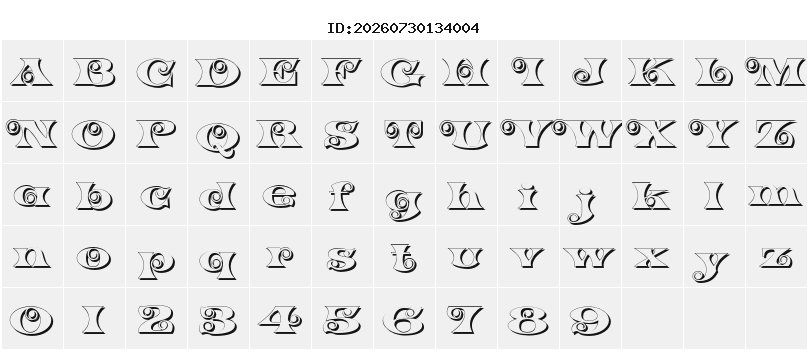
• Font Name: K22 Spiral Swash Shadow
• Designer: Toto
• Description: K22 Spiral Swash Shadow was derived from Spiral Swash in Swash Letter Alphabets by Dan X. Solo. Toto Ika-2 ng Setyembre 2010